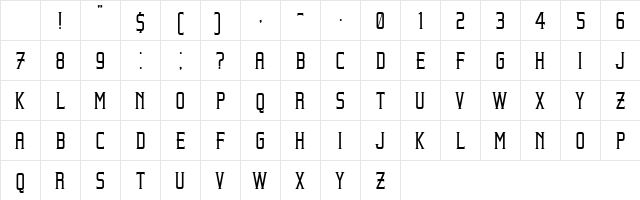
Complete Beholder Regular glyph index. Displaying only characters natively supported by Beholder Regular font.
Beholder is a composed and adaptable typeface that performs quietly and consistently across a wide range of design contexts.